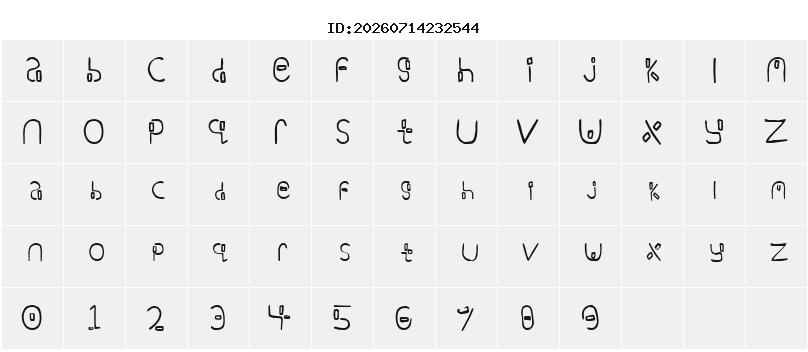
Yikatu Preview
• Font Name: Yikatu
• Full Font Name: Yikatu
About Yikatu.ttf
Yikatu.ttf is a modern, elegant sans-serif font designed for ultimate readability and visual harmony. Perfect for branding, headlines, web design, and print materials.